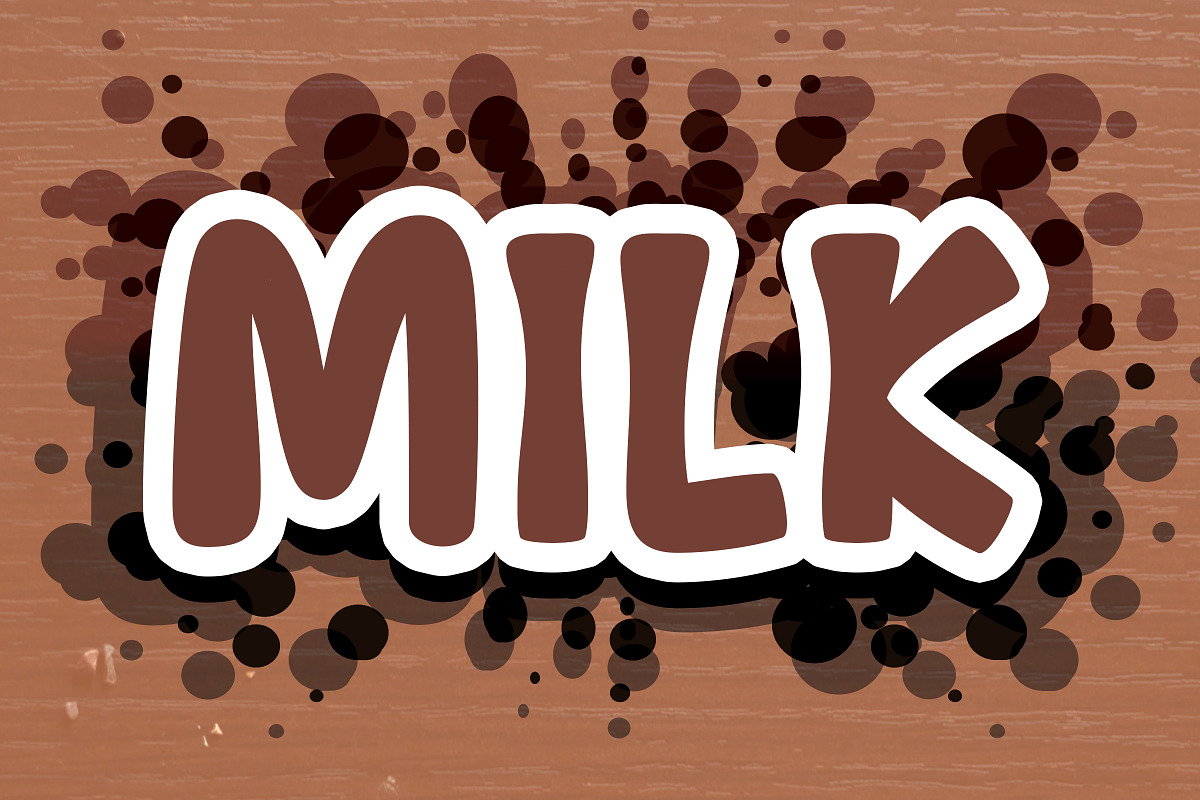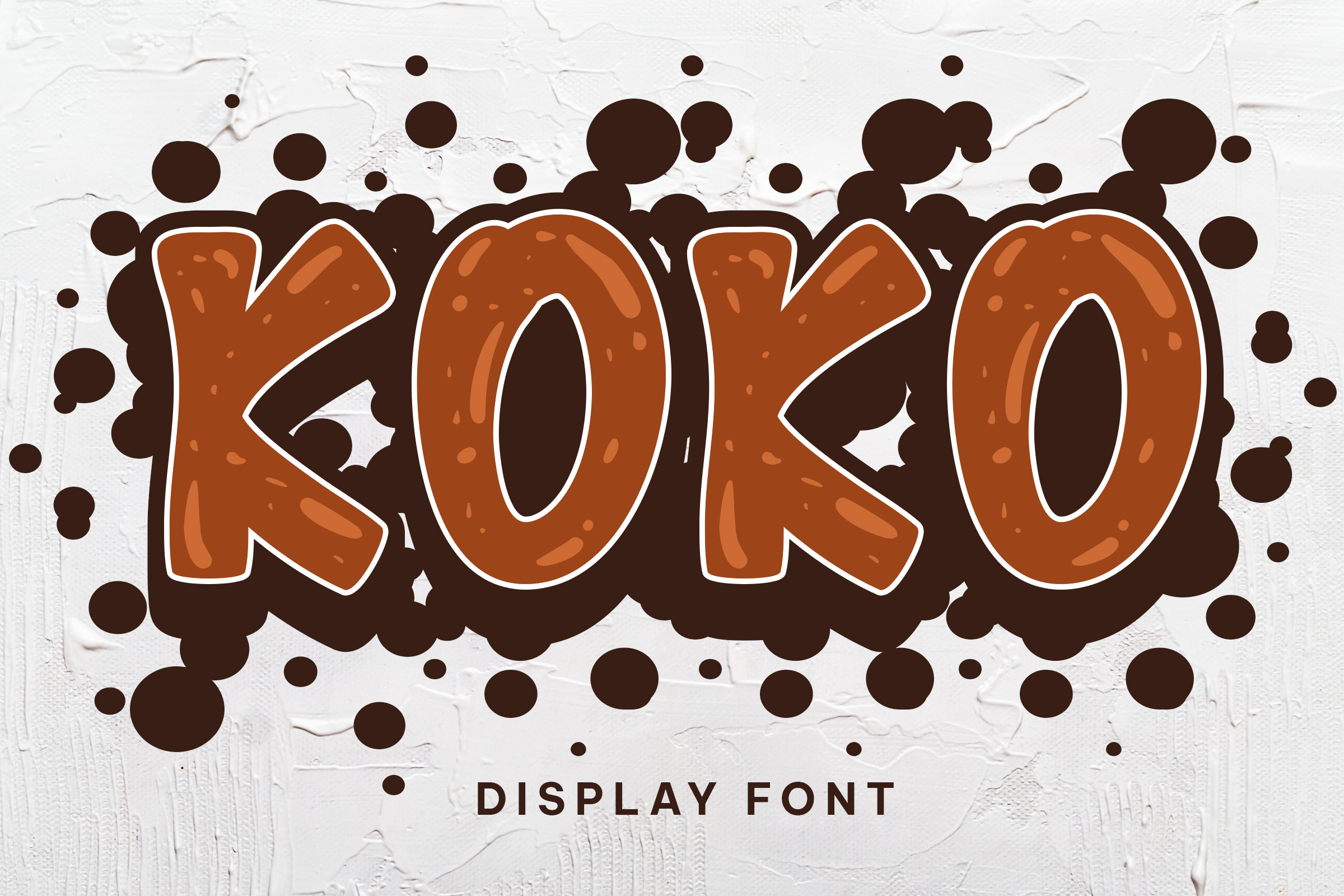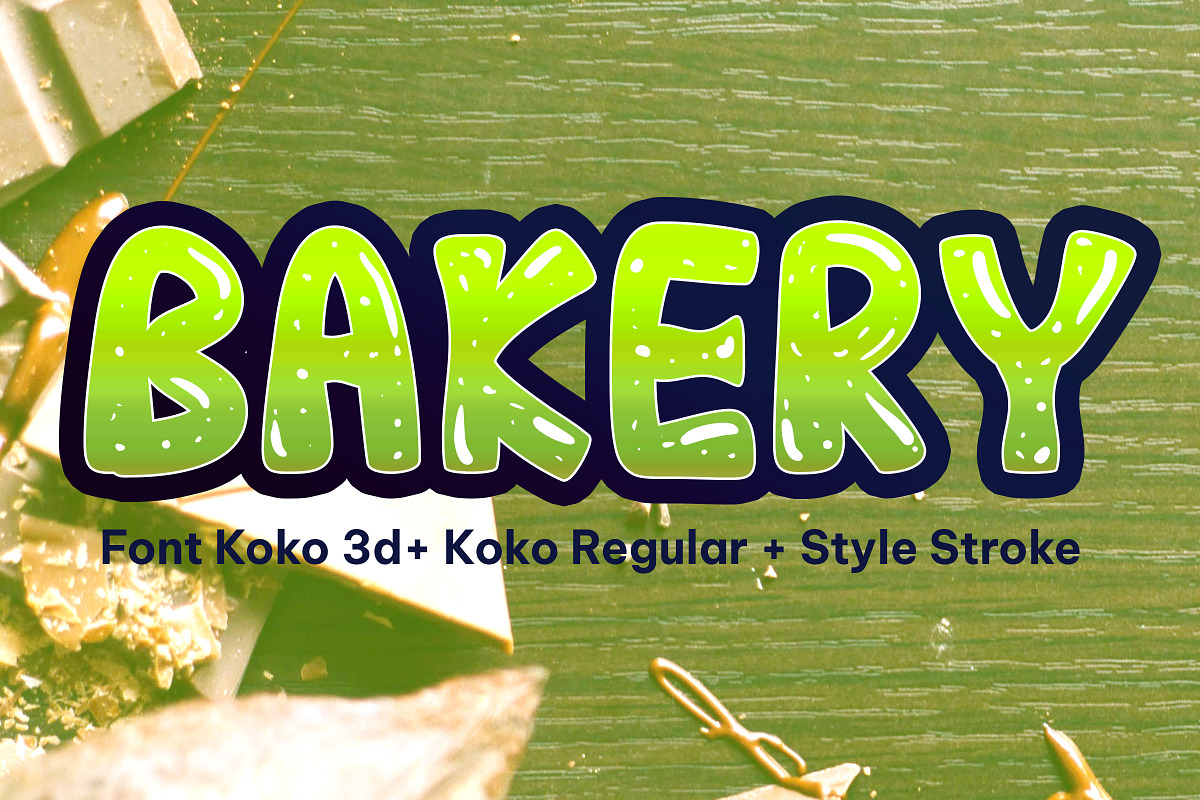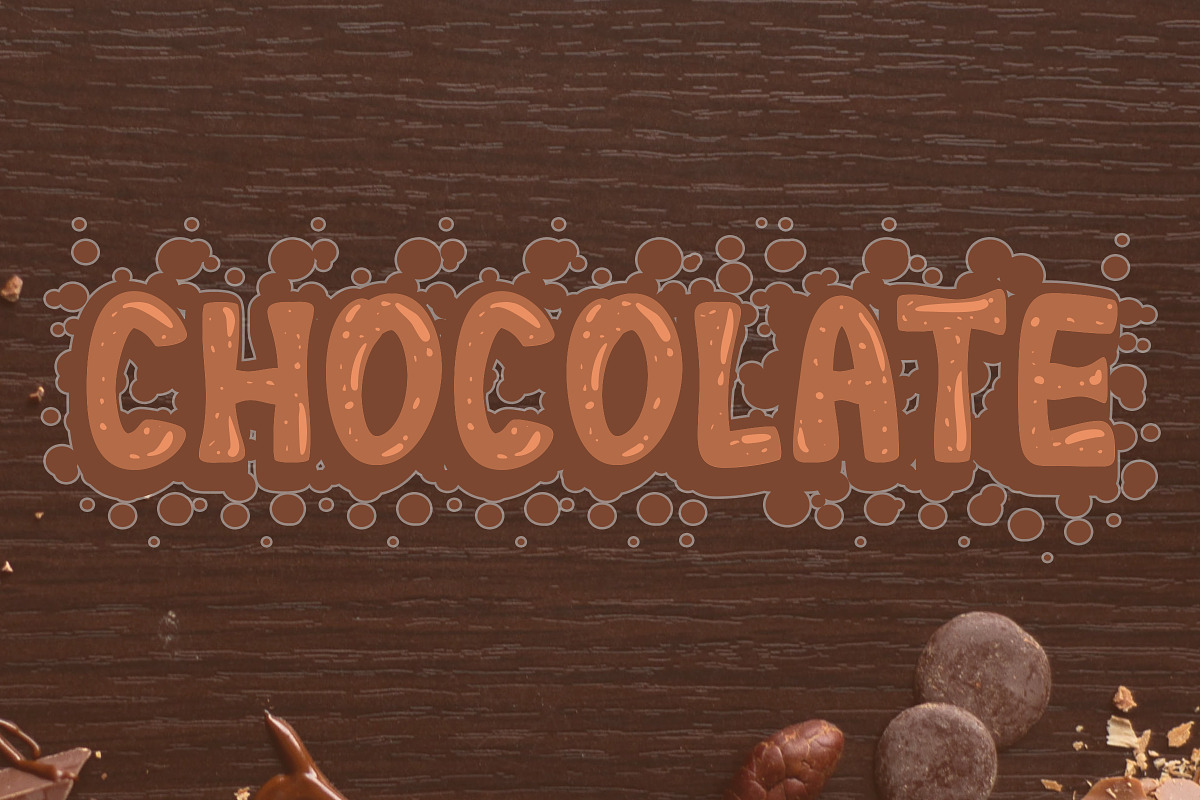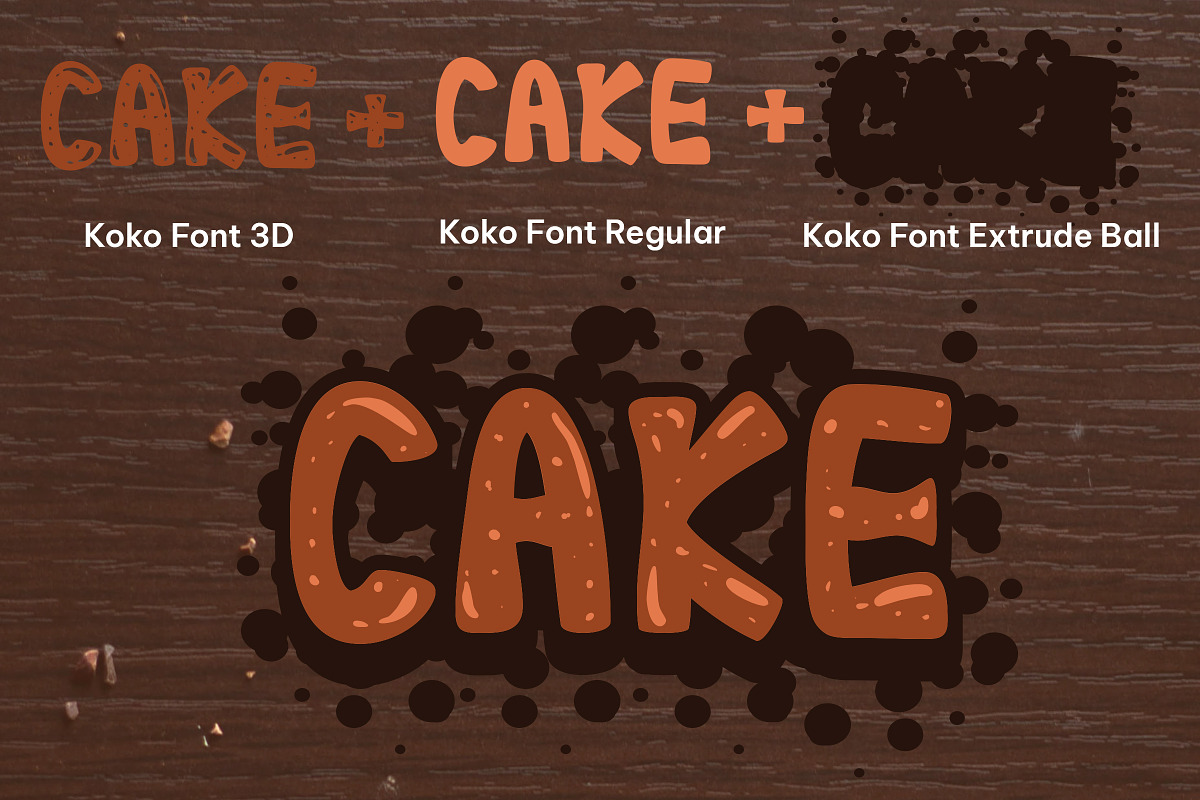
Koko - fun display font
Koko is a chic, trendy and fun display font. Whether you are using it for cartoon-related designs, children games, quotes, titles, brand names, book covers, posters, or just any creation that requires a touch of joy, this font is a great choice. This dazzling display font will turn any creative idea into a standout!